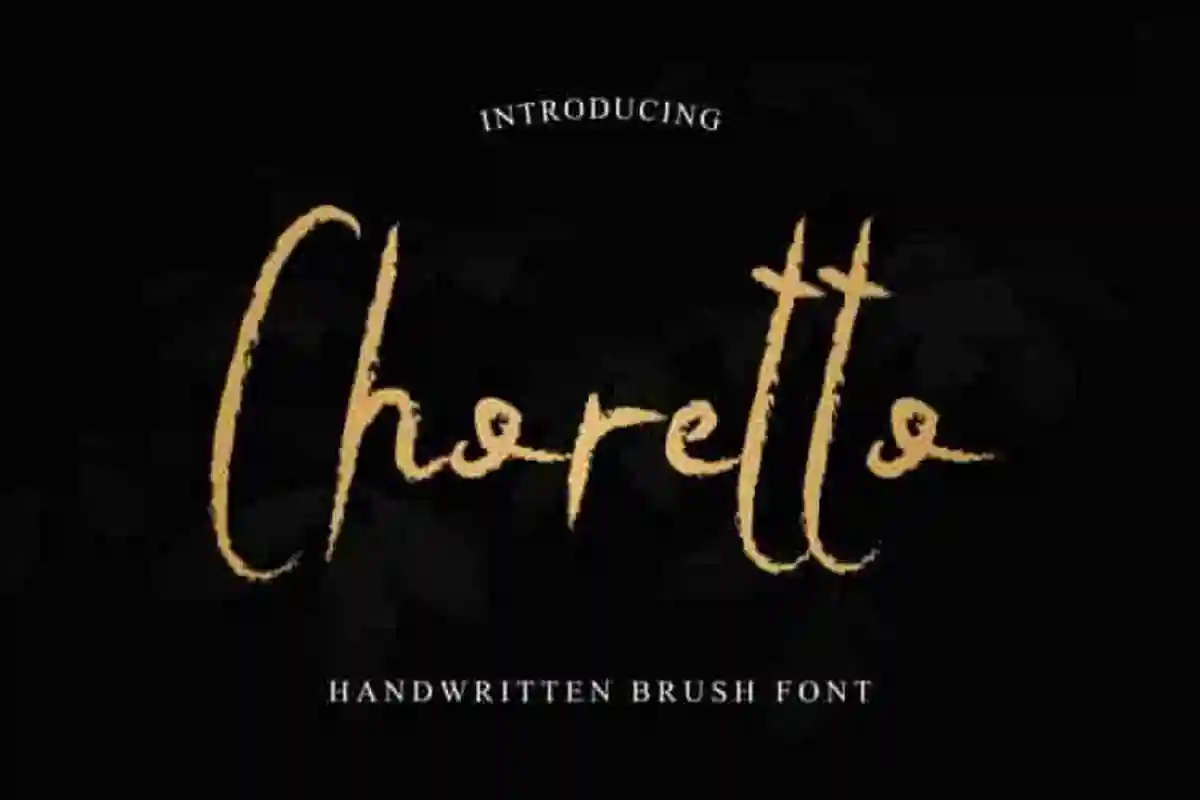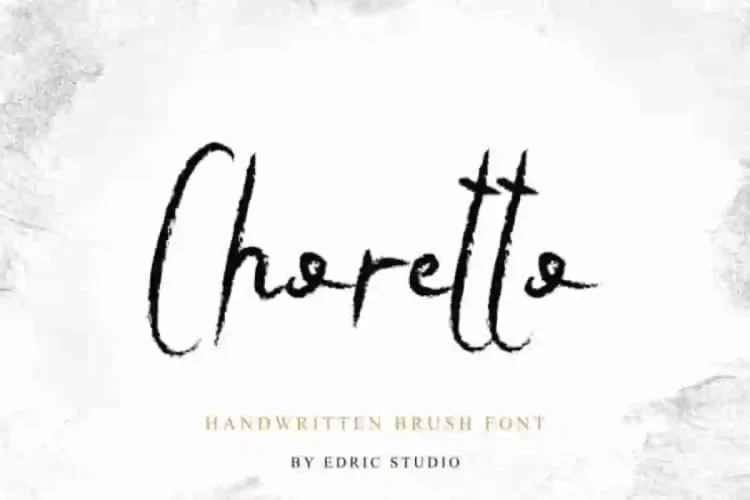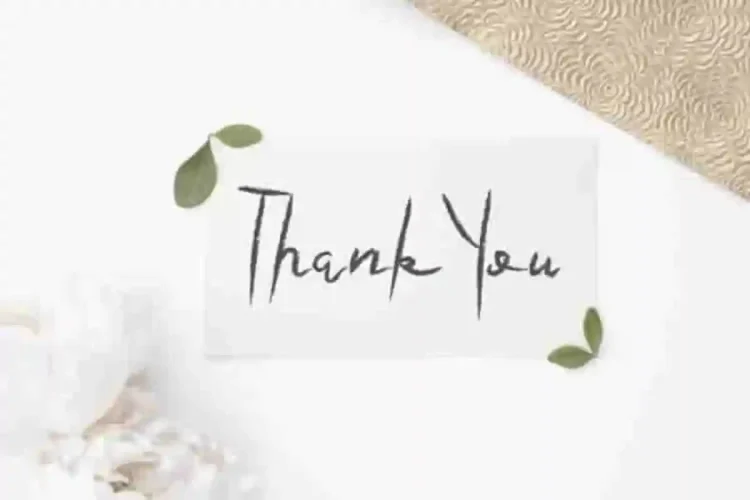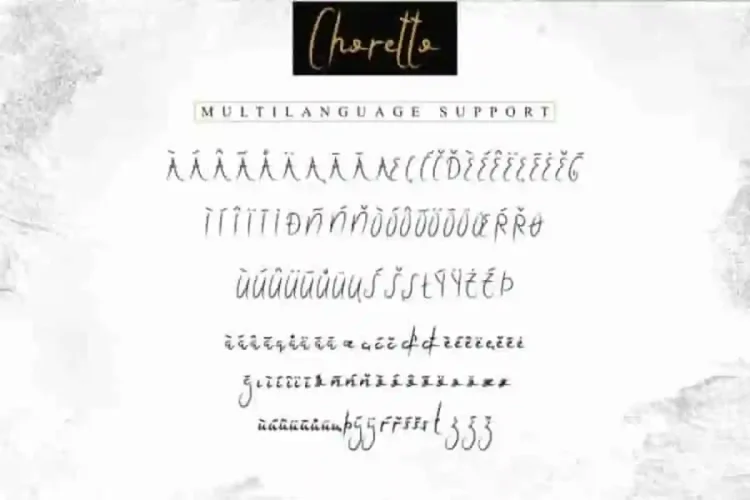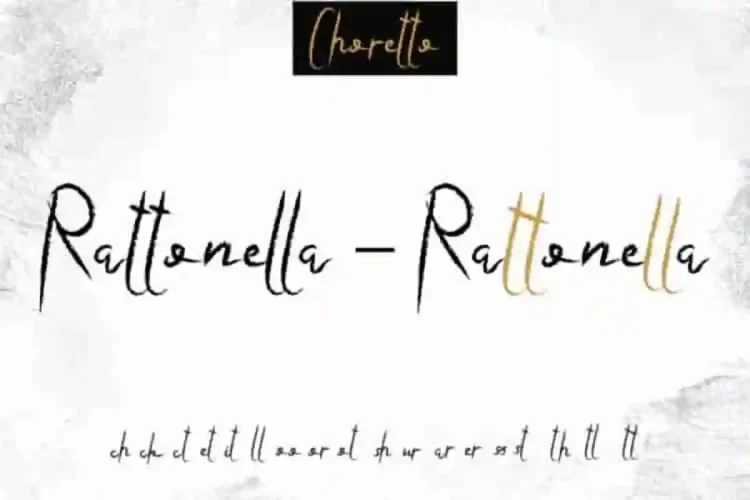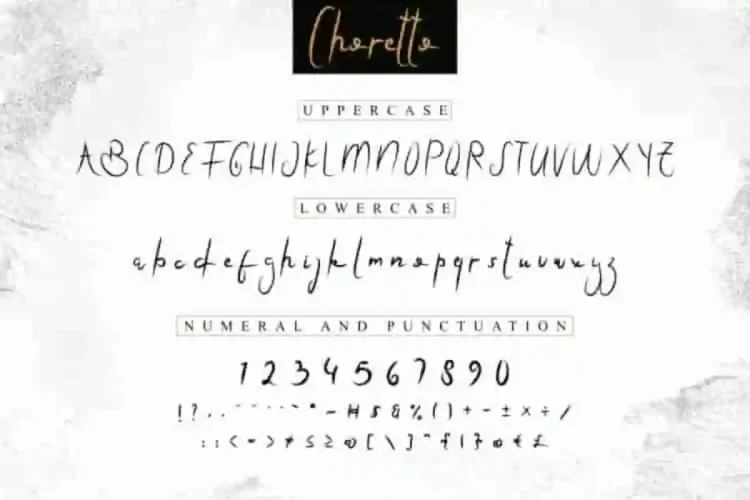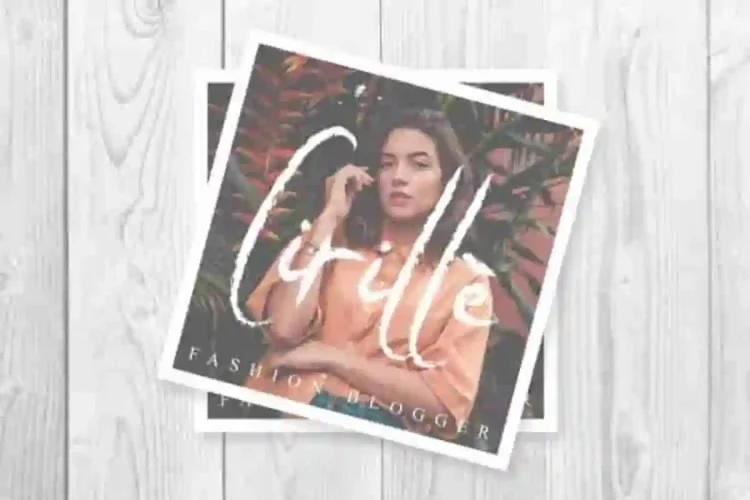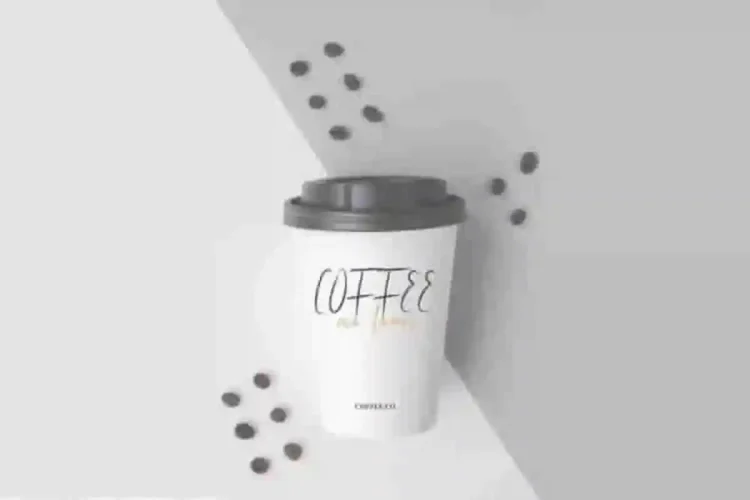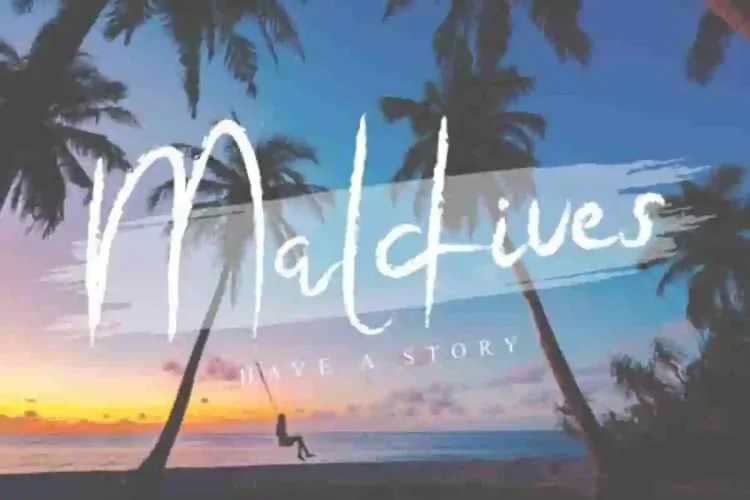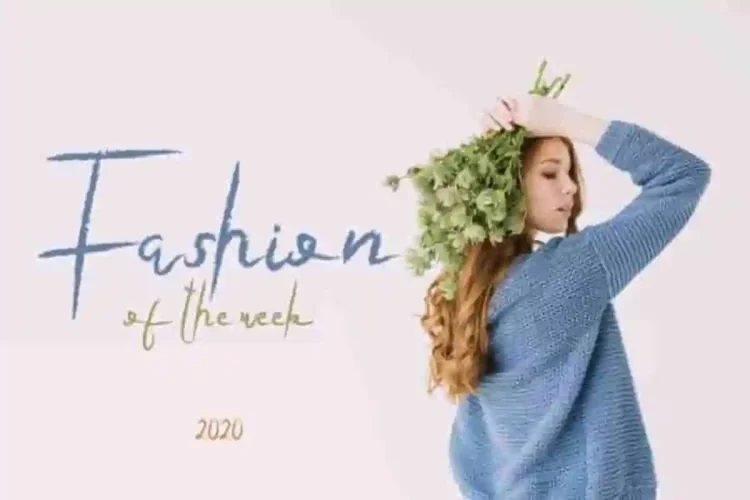
Choretto Handwritting Font
Please meet our newest font collection : Choretto Handwritting Font
This is a display font made by our typeface designers : Saila and Suci, made in Bandung and Garut Indonesia.
Choretto Font is a rough grunge yet beautiful display script font. It has a unique typeface designs with special textured effect. Well space managed and hand selected kerning arrangement. The theme style of this font are horror,  vintage, stylish, sophisticated , classic, brush, calligraphic, chalk texture and exclusive style. Stand out from the crowd using this font.